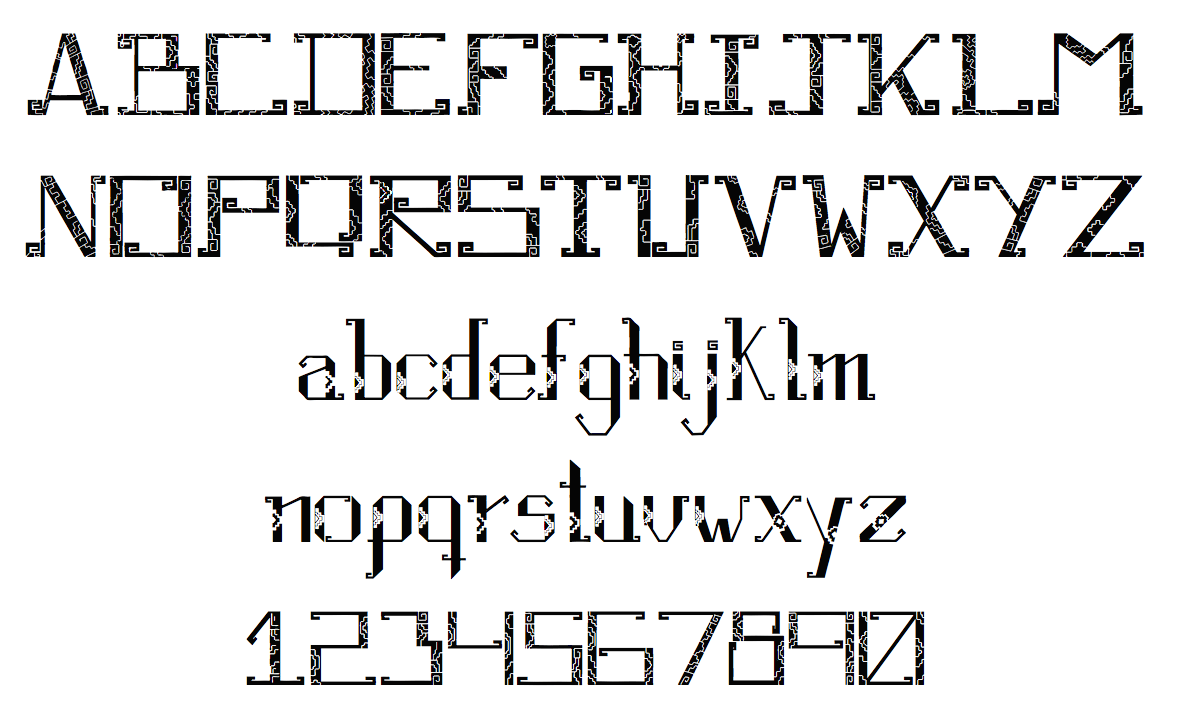
Mavet Vergara
Mavet Vergara (Valencia, Spain) co-designed Jach'a (2015), a textured typeface inspired by native Chilean patterns, together with Katherine S&aauml;nchez and Carla Vazquez during their studies at the University of Chile. Jach'a means tall and strog in Quechua. |